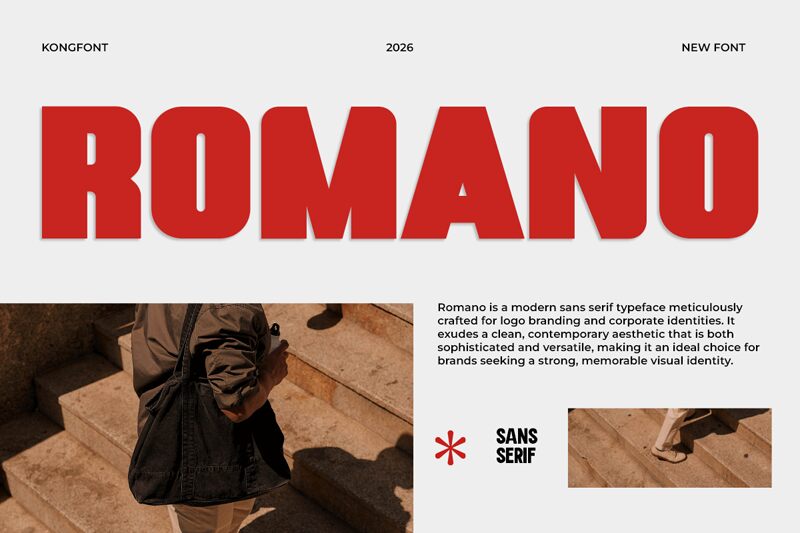
Romano font by Kong Font is a free sans serif font with a modern and impactful design. Its strong presence and contemporary aesthetic make it an invigorating addition to any creative project. This font’s corporate feel makes it ideal for professional projects where the clean appearance can be put into full effect.
Its versatile nature makes it as suited to logos as it is for newspaper body copies. Other substantial fields of application include branding, magazines, posters, flags, web and app design, infographics and much more. Display projects, particularly those of a larger size, will really benefit from Romano’s clean look and legibility.